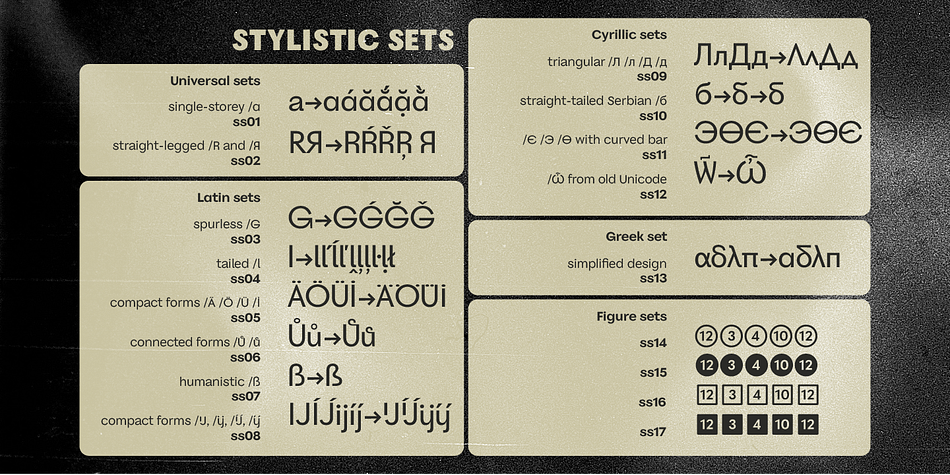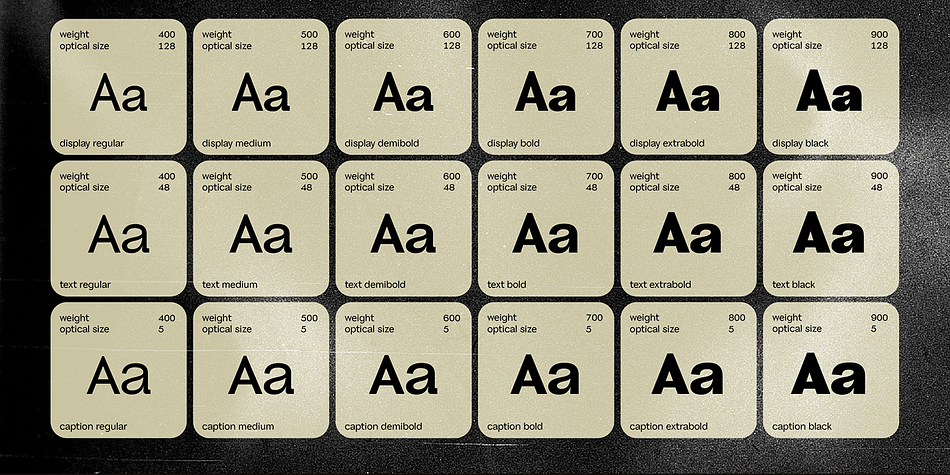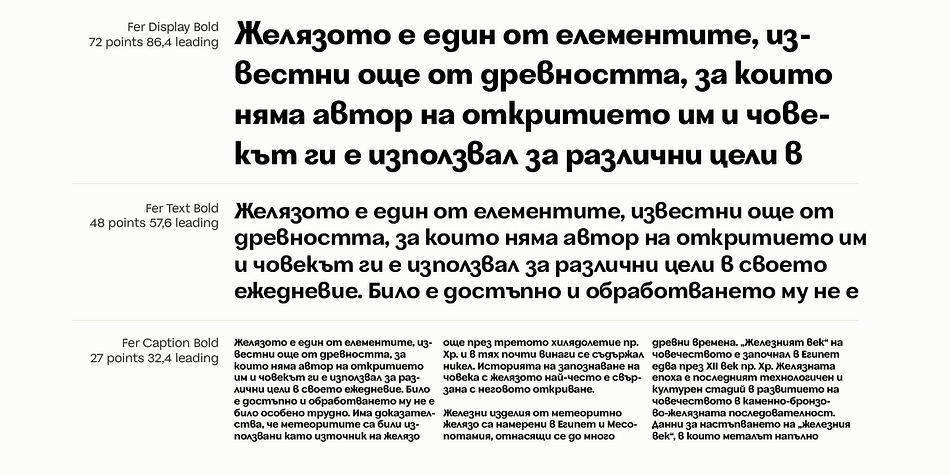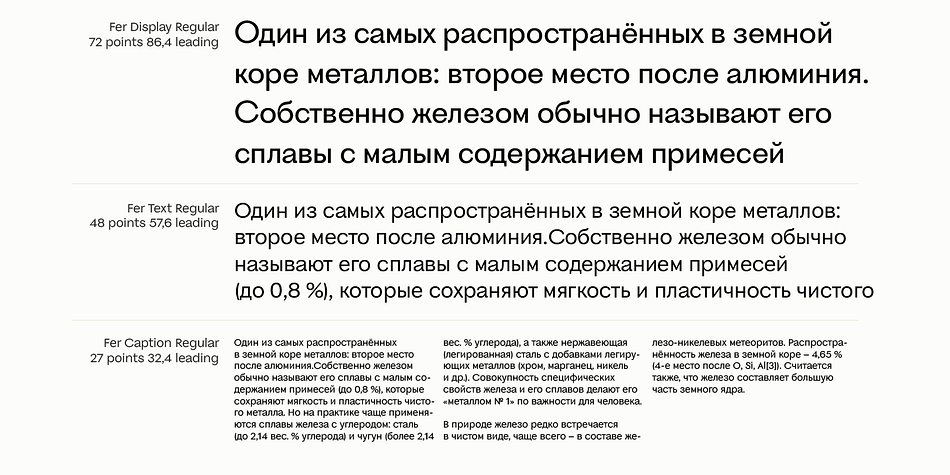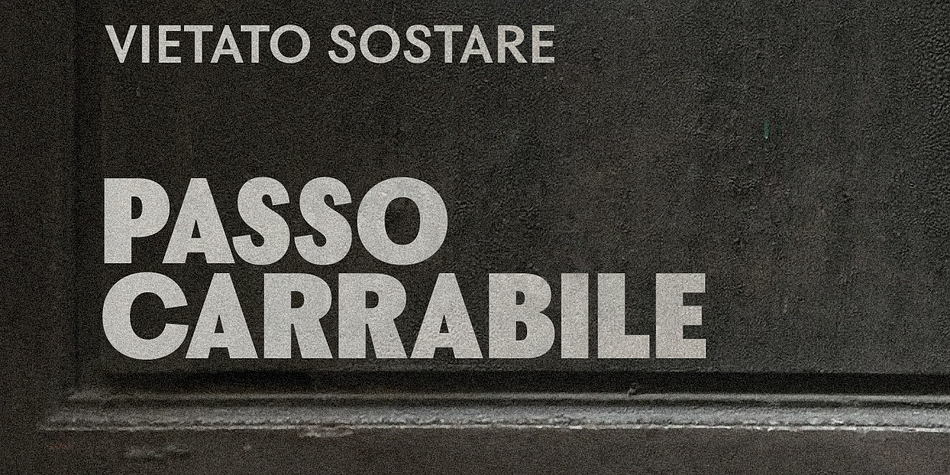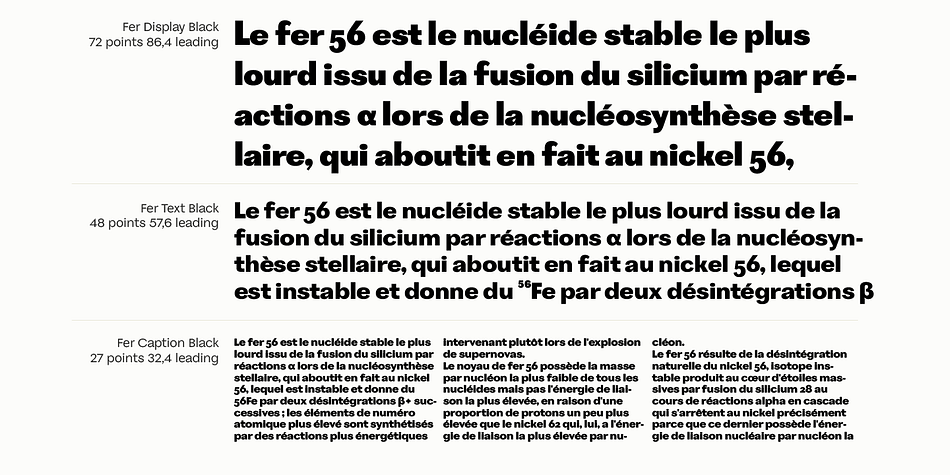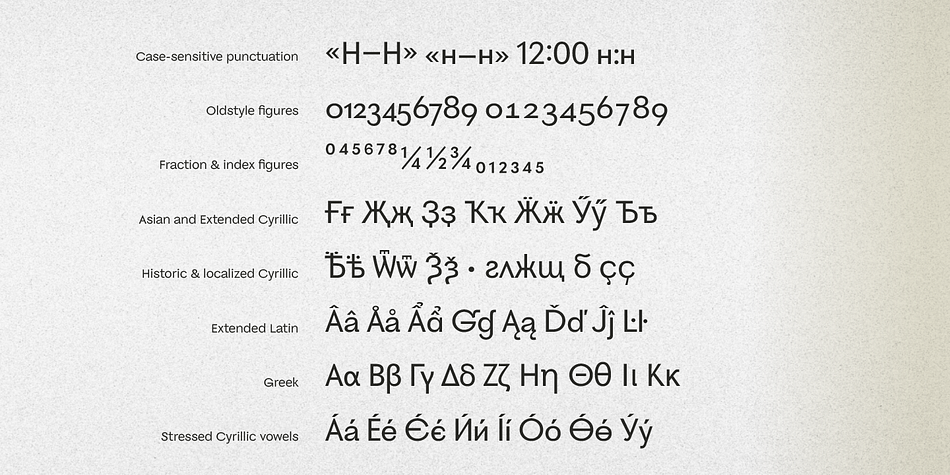
Fer
Designed by Dmitry Goloub, Fer is a sans serif font family. This typeface has nineteen styles and was published by ParaType.
Fer is a sans-serif font for body text, not lacking in its own distinctive voice. The aftertaste of reading the text set in Fer is like reading the letters on old rusty plates somewhere in Southern Europe, hence the name (Fer means iron in French).
Being a modern system that includes a variable font with weight and optical size axes, Fer combines the features of geometriс sans serifs and old sans serifs with closed apertures. The typeface contains three sets of styles: for captions, text and headings, — with the weight ranging from regular to black.
Fer was created with the idea to unite nations. The Latin character set supports all European languages, most African languages and Vietnamese. Cyrillic has support for all living Cyrillic languages and some obsolete characters too. The font also supports the Greek language. Additionally, the character set includes currency signs of all supported languages’ countries, old style, lining, tabular and proportional figures as well as numbers in squares and circles. Lastly, the font has lots of localized letterforms and stylistic sets.
Fer was designed by Dmitry Goloub for Paratype in 2020–2023